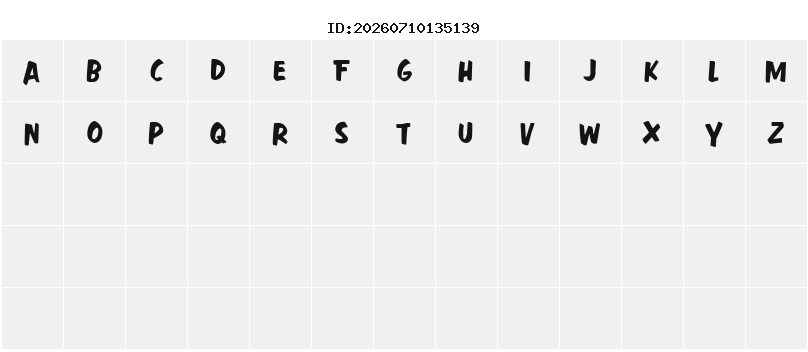
Fast Action Preview
• Font Name: Fast Action
• Full Font Name: Fast Action
• Designer: Kristian Larsen
About Fast Action.ttf
Fast Action.ttf is a modern, elegant sans-serif font designed for ultimate readability and visual harmony. Perfect for branding, headlines, web design, and print materials.